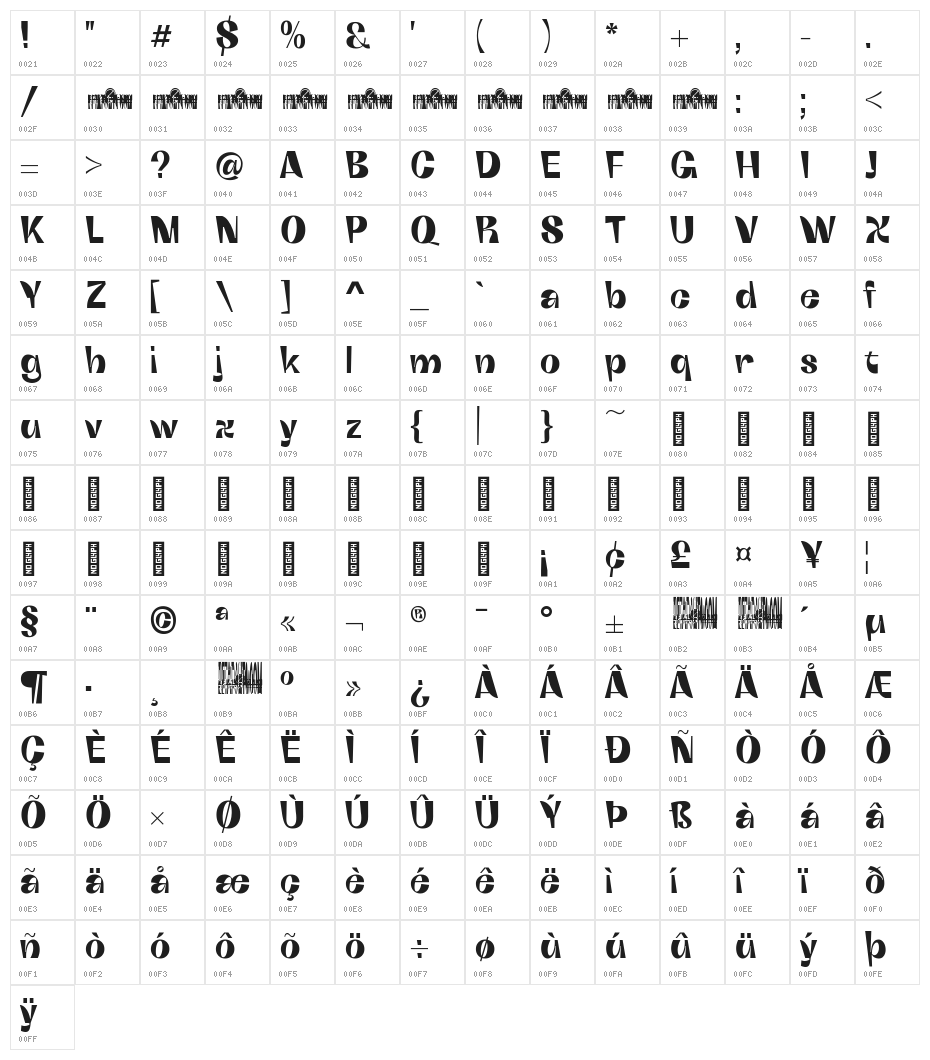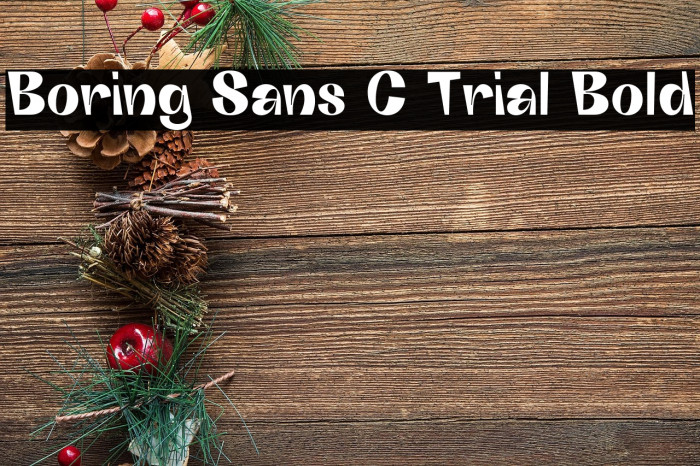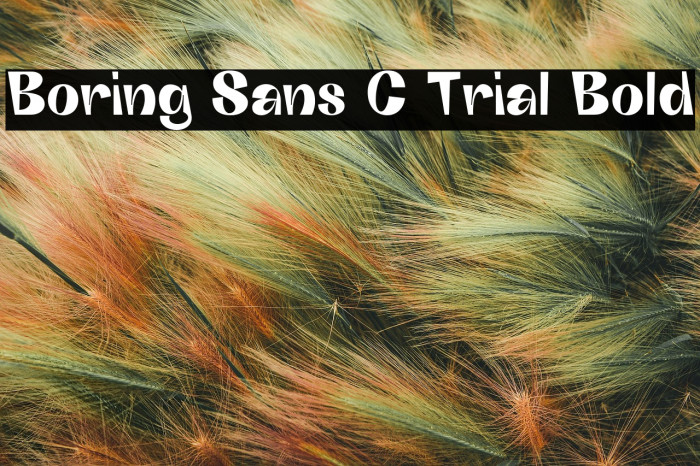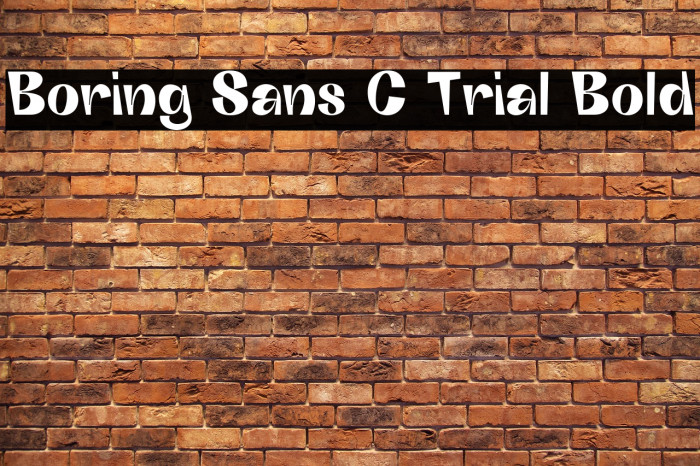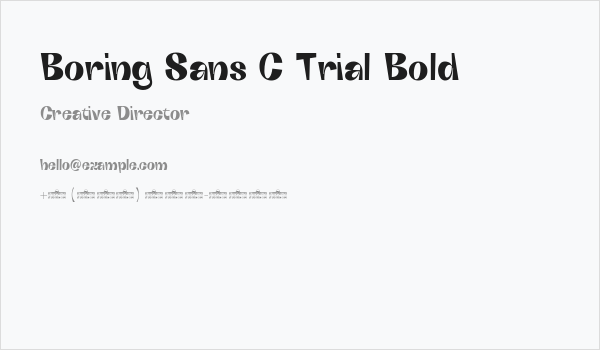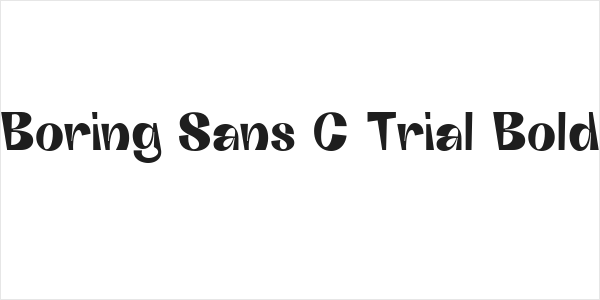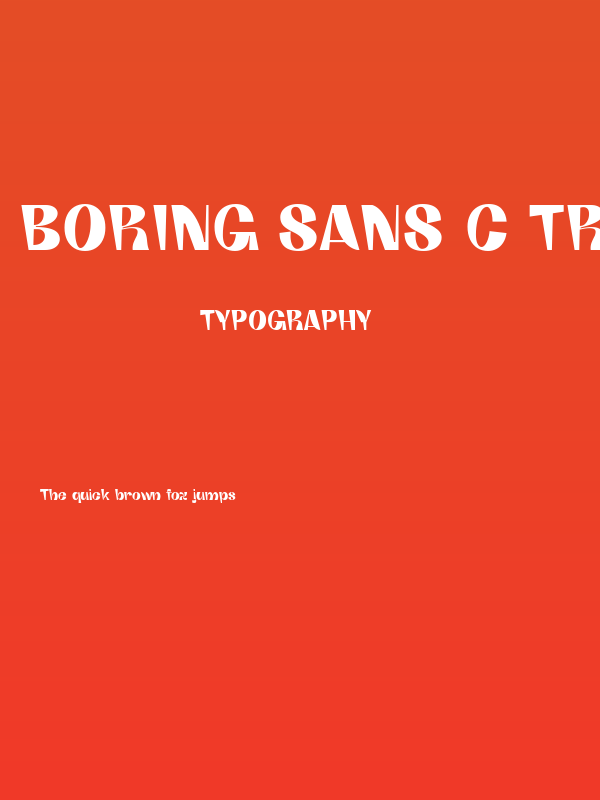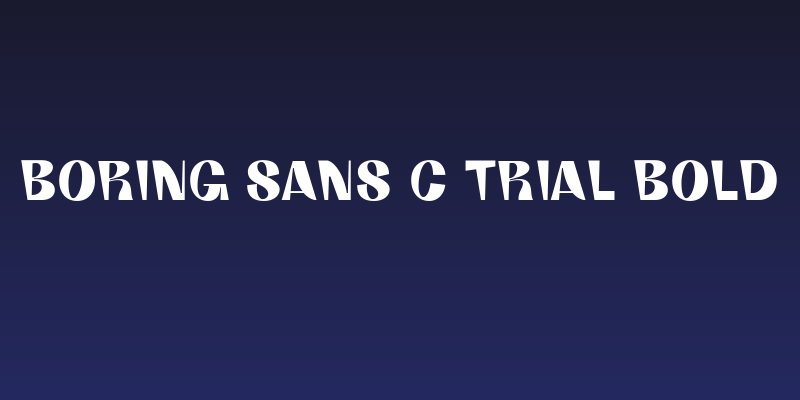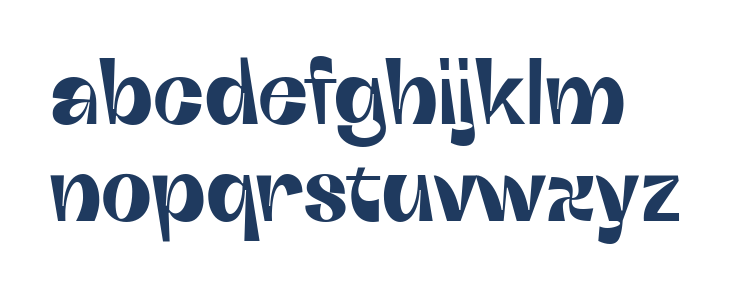
Boring Sans C Trial Bold Font
Boring Sans C Trial Bold Description
This font features a bold and playful design with a unique, quirky style. The characters are wide and have a distinct, exaggerated curvature that gives them a whimsical appearance. The uppercase letters are particularly striking, with a strong presence and a slight tilt that adds to their dynamic look. The lowercase letters maintain the playful theme, with rounded edges and a consistent weight throughout. The numbers and special characters are equally bold, ensuring they stand out in any design. This font is perfect for projects that require a fun and engaging aesthetic.